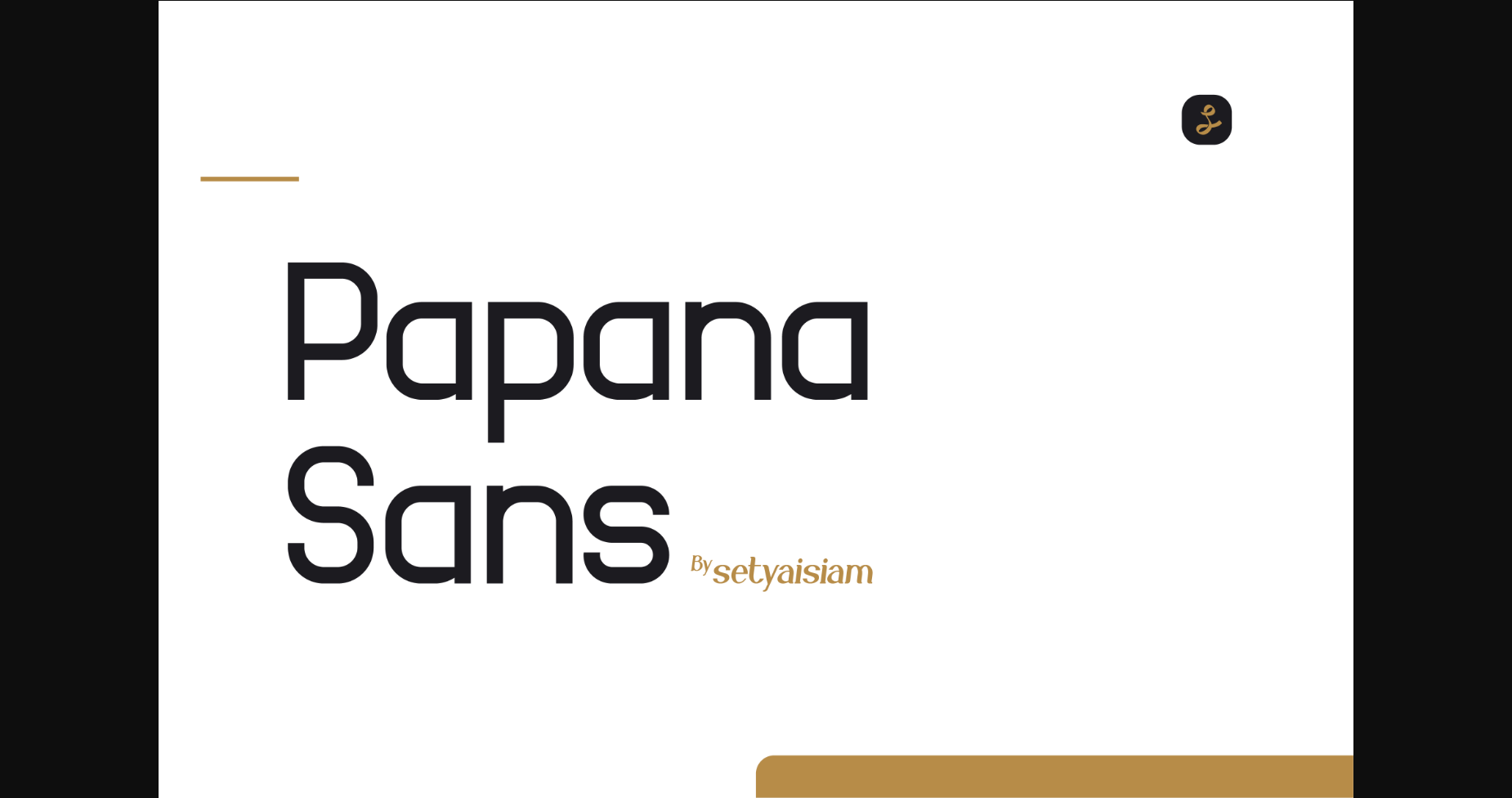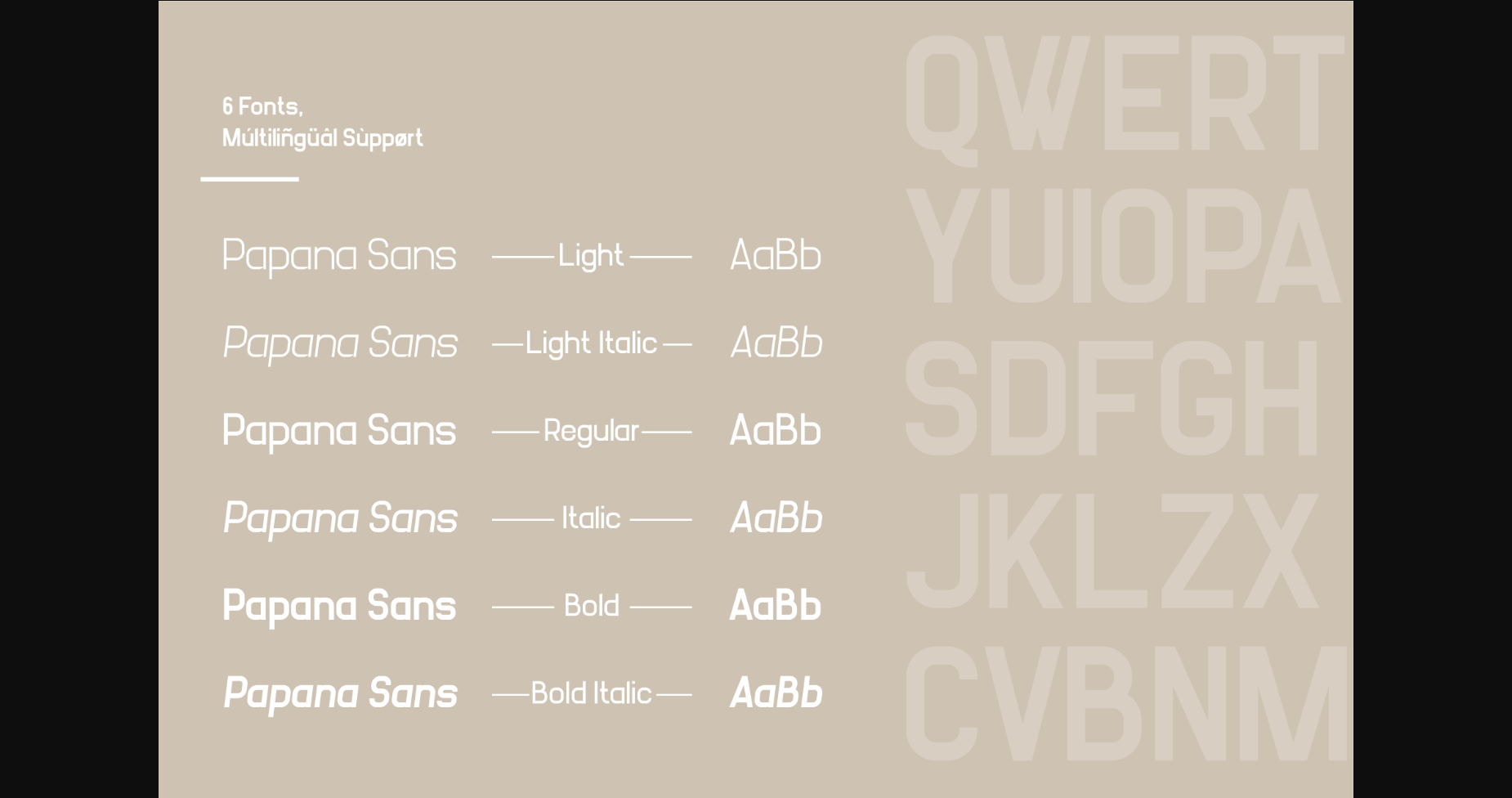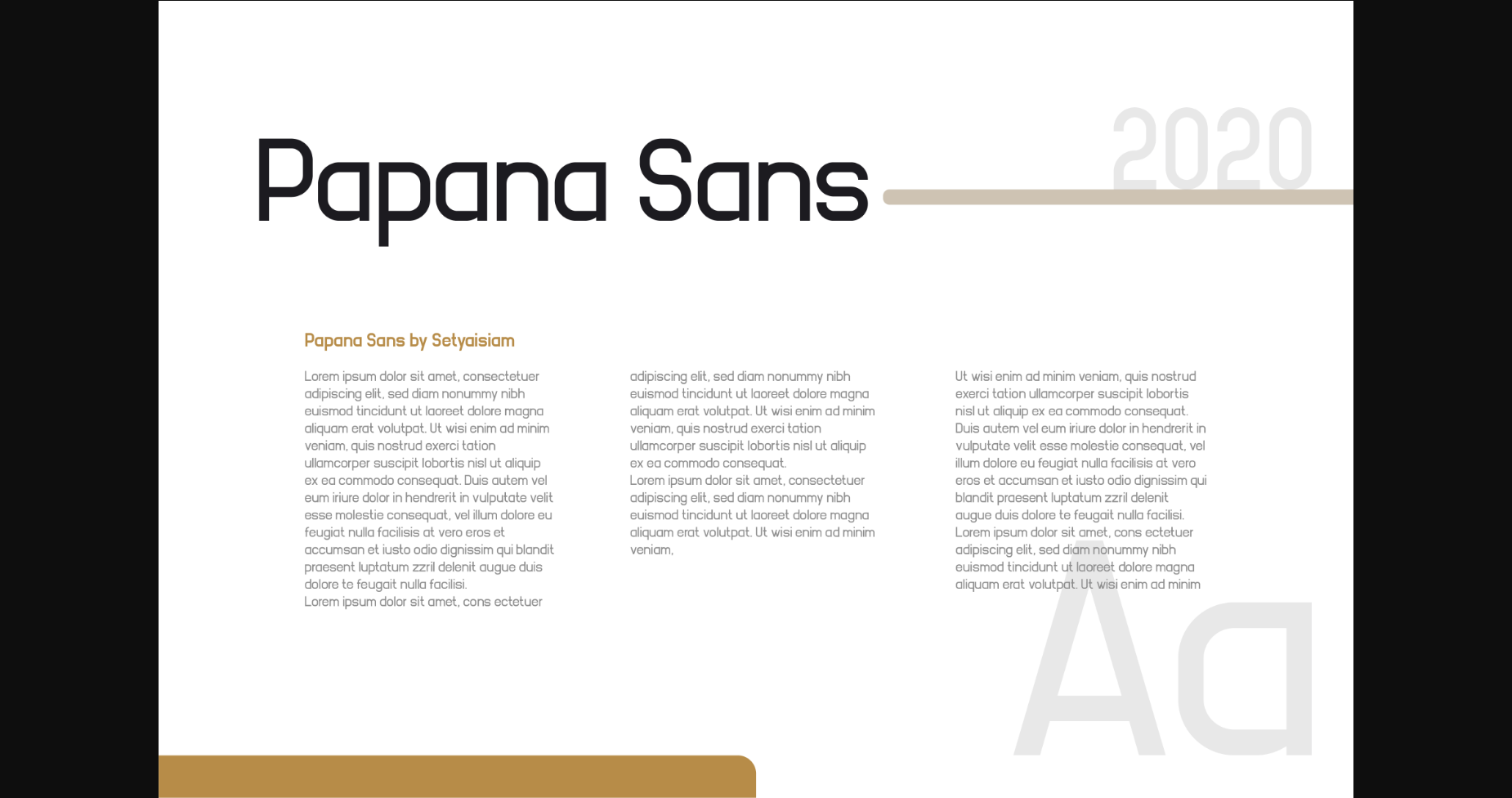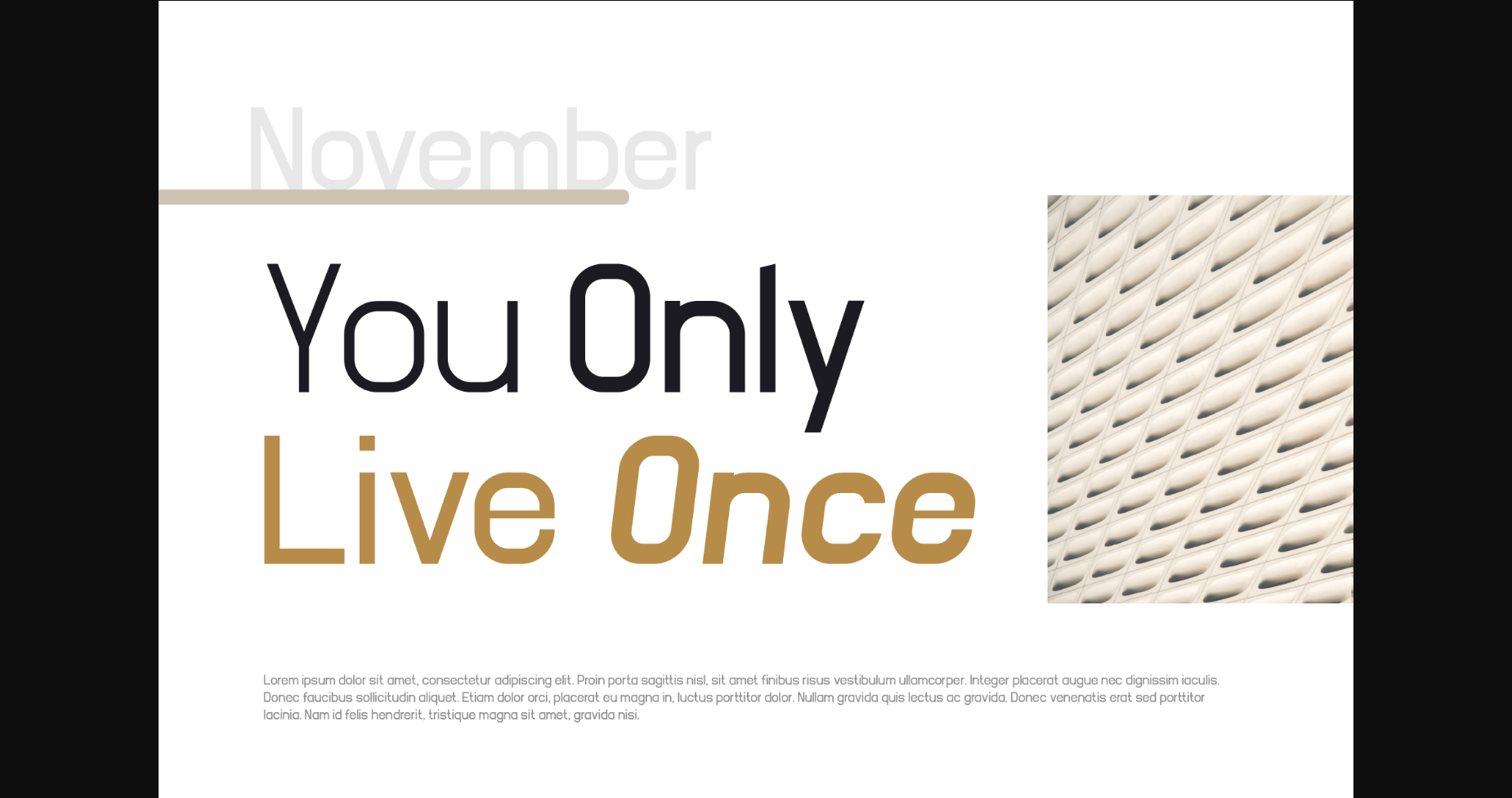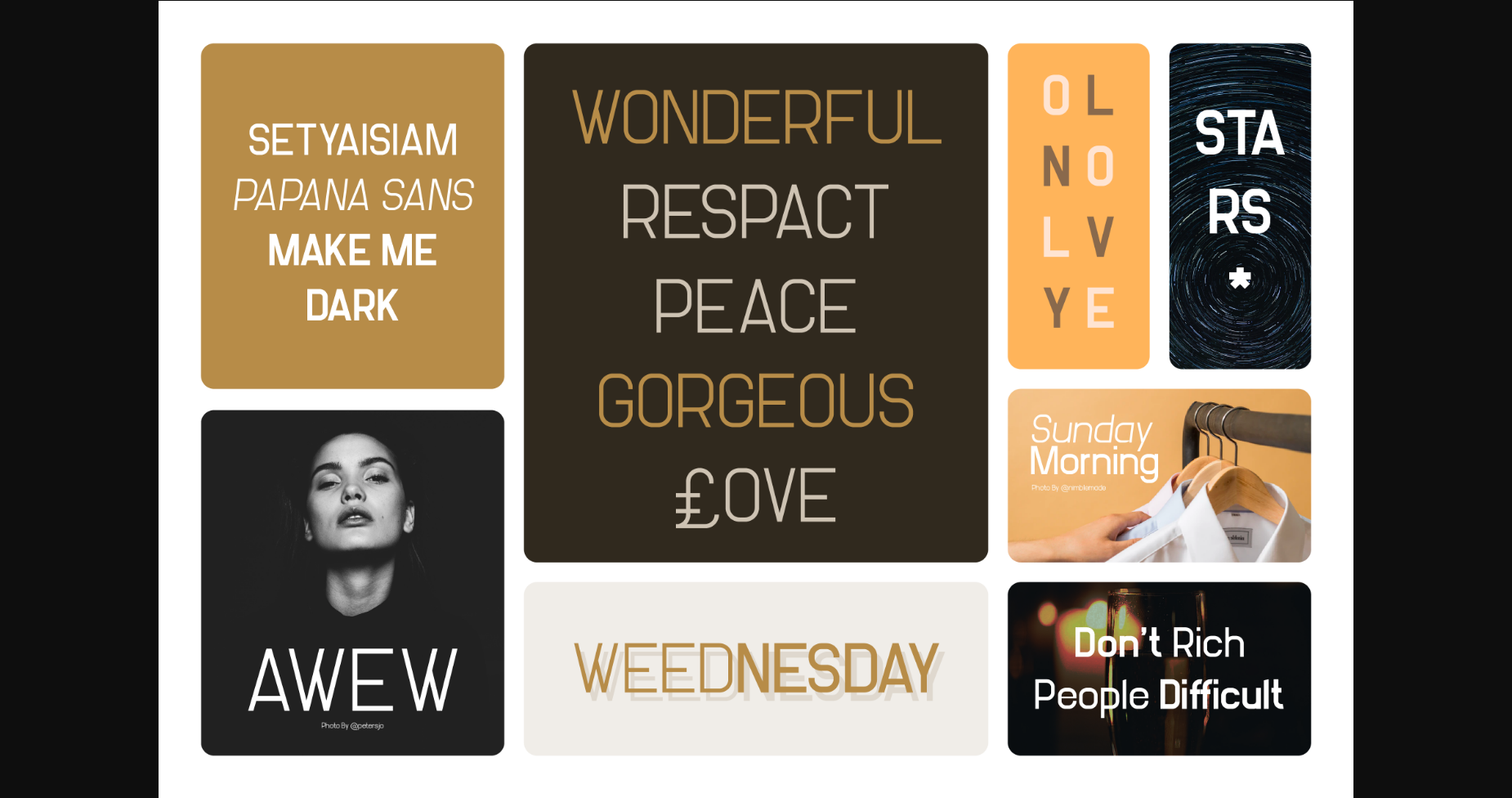
About Papana Sans Font
Papana Sans is a neat, techno looking and cool sans serif font. This font is ideal for writing web designs, business cards, or pretty much anything else that requires a unique touch.